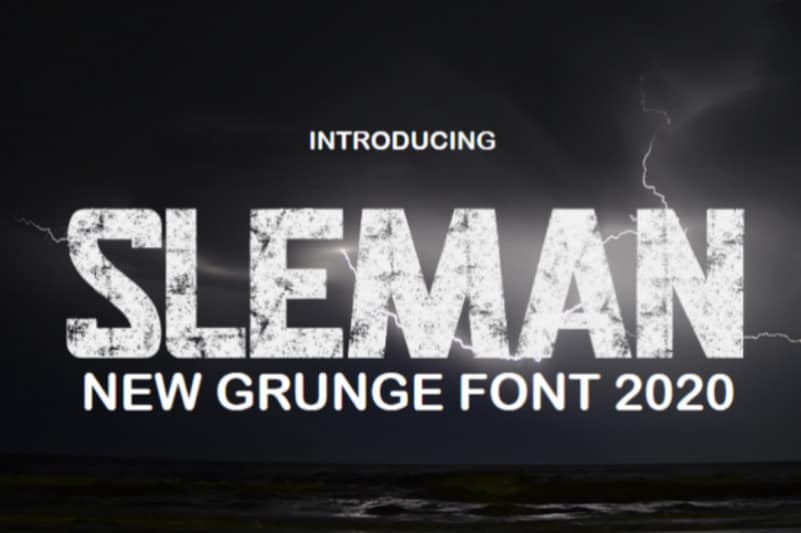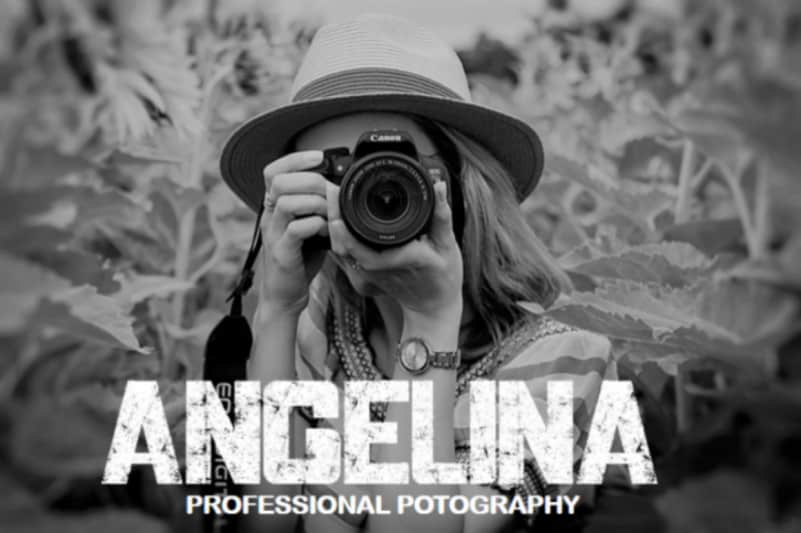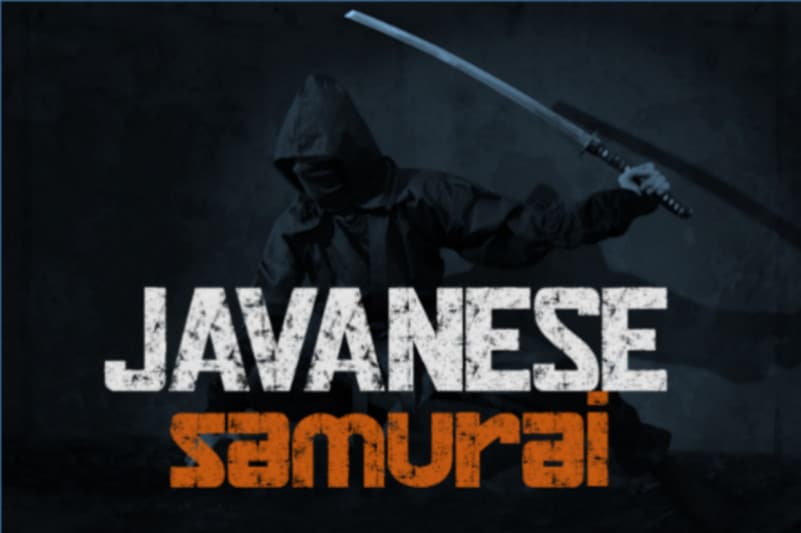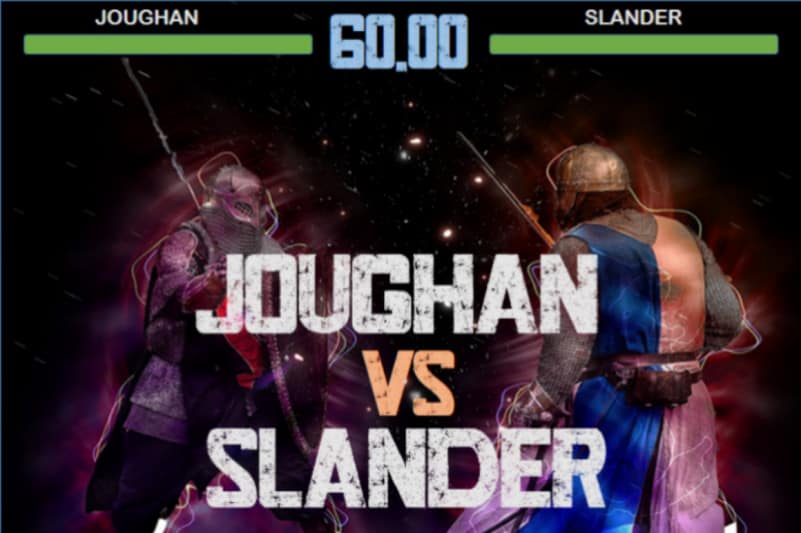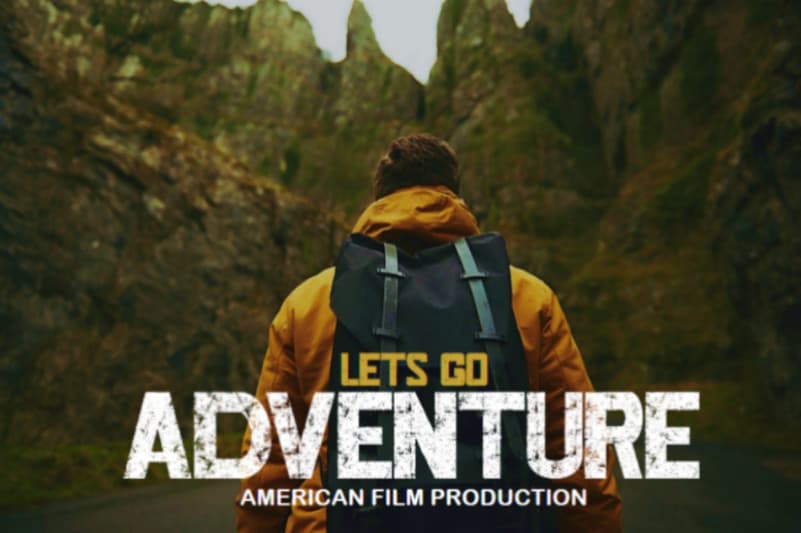
Sleman Display Font
It born from an inspiring vintage display. Sleman Display Font gives a feel of a vintage, classic, old, and based on handmade. With messy line stamp touch in Sleman Two give you a vintage taste. Already PUA Encoded and this font is perfect for people looking for vintage aesthetic or logo-type. Suitable for any graphic designs such as branding materials, t-shirt, print, business cards, logo, poster, t-shirt, photography, quotes .etc.